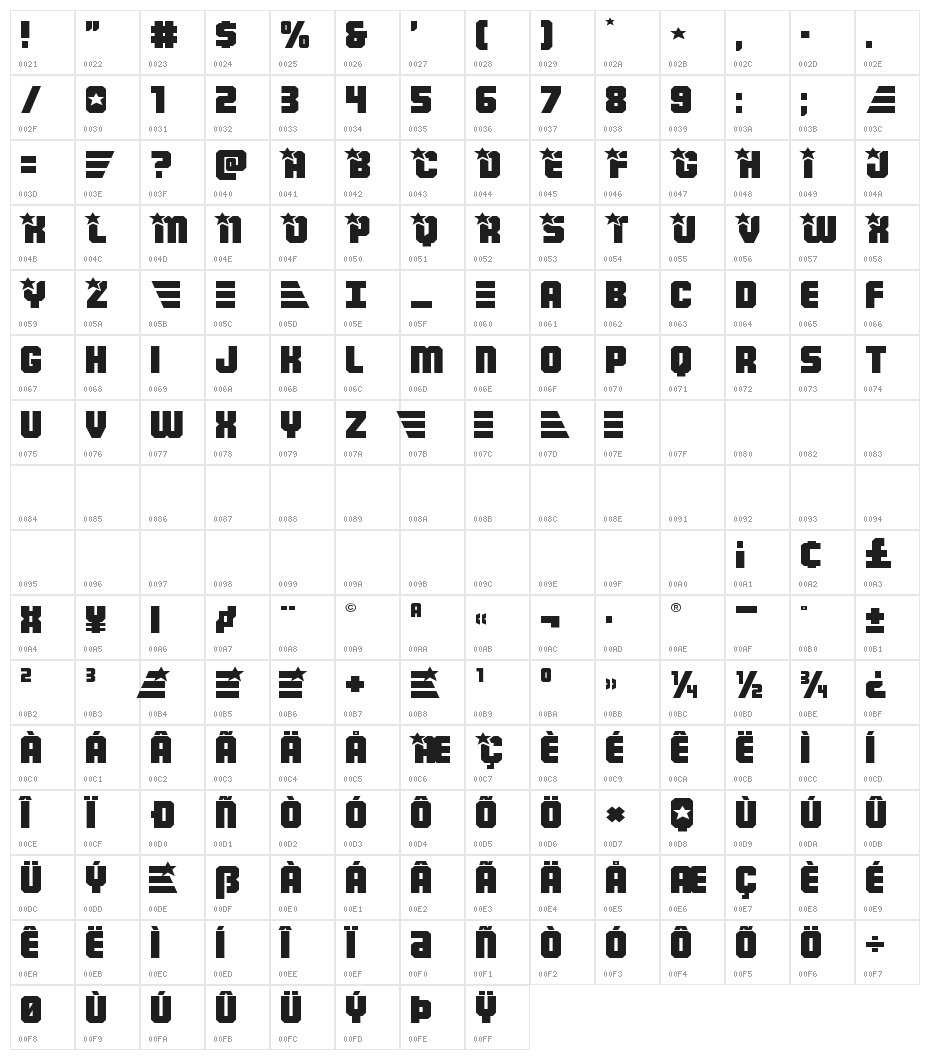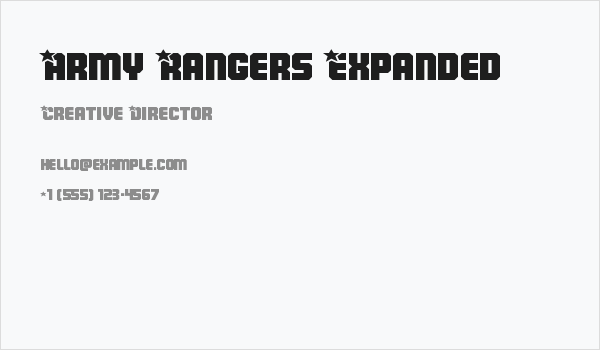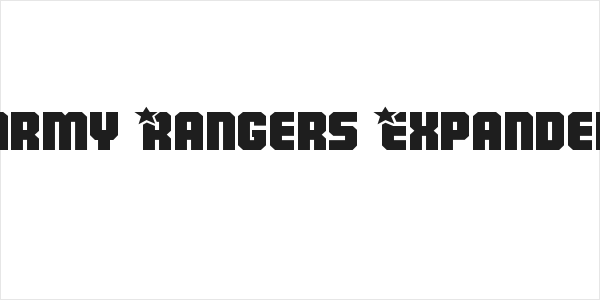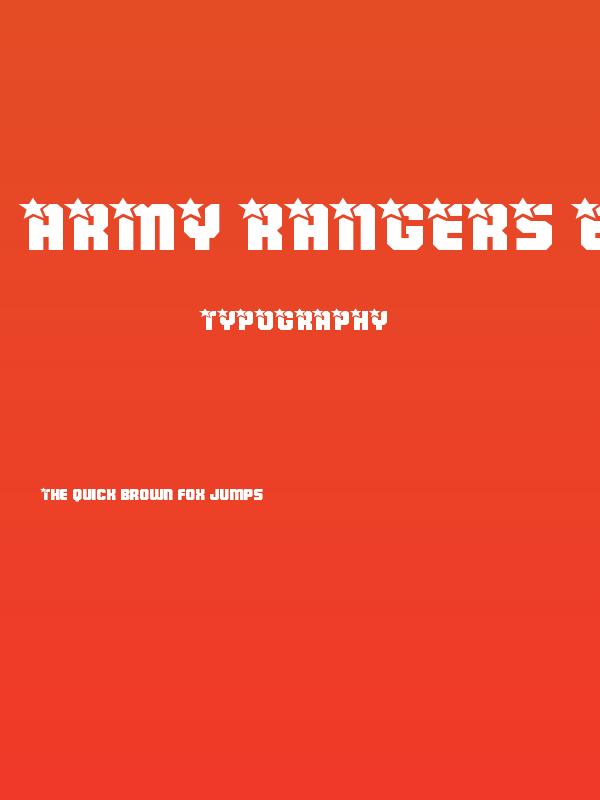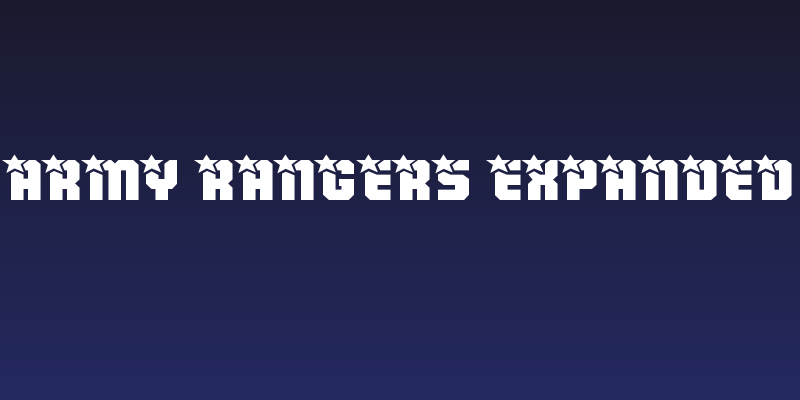
Army Rangers Expanded Font
Army Rangers Expanded Description
This bold and striking font features a military-inspired design with a strong, geometric structure. The uppercase letters are adorned with star motifs, adding a decorative touch that enhances its commanding presence. The characters are blocky and robust, making them ideal for impactful headlines or branding that requires a sense of authority and strength. The numbers and special characters maintain the same bold style, ensuring consistency across all text elements. This font is perfect for projects that need a bold, patriotic, or military-themed aesthetic.
Proposed ProjectsIdeal for military-themed posters, patriotic branding, sports team logos, or any project requiring a strong, authoritative typeface.